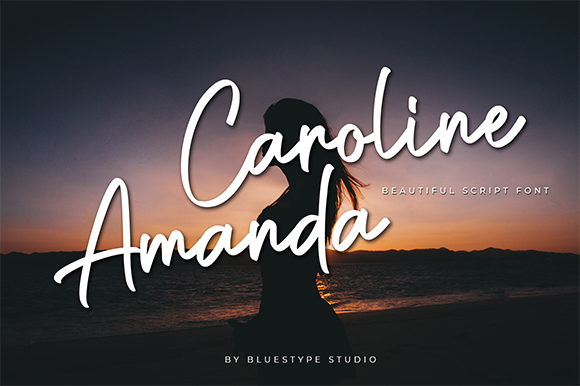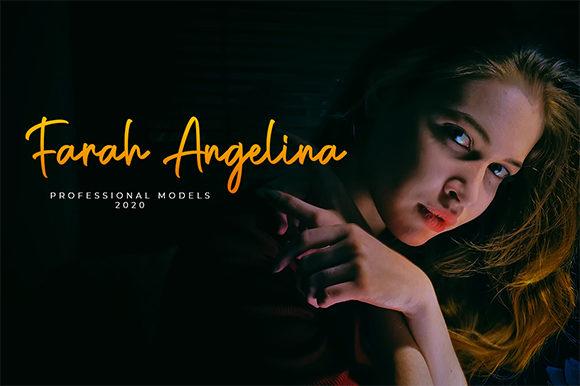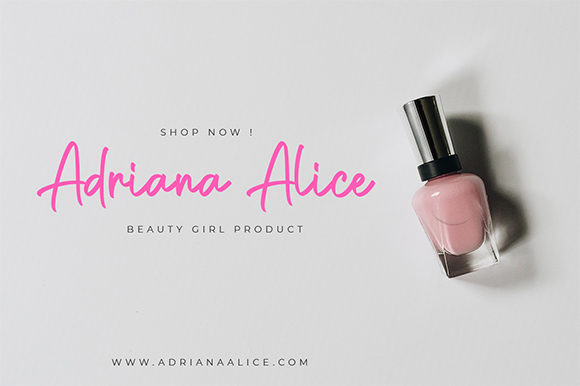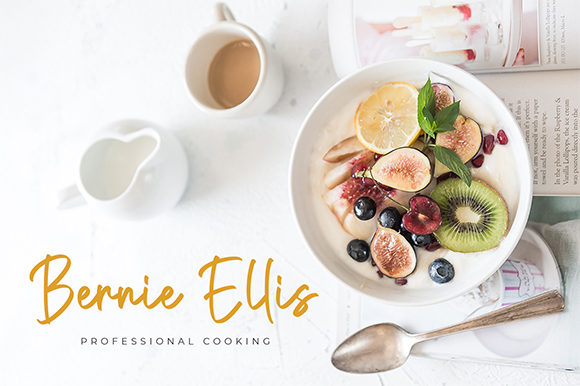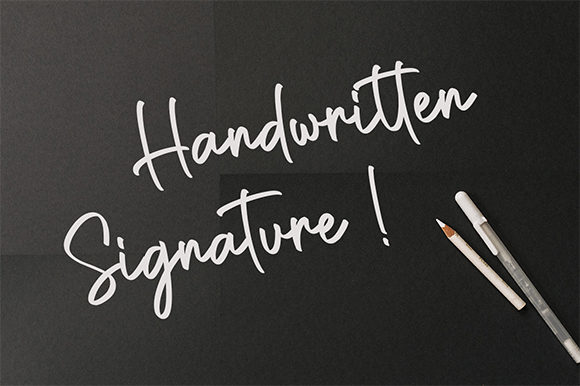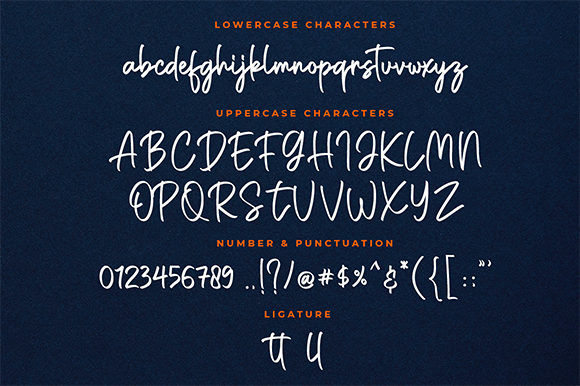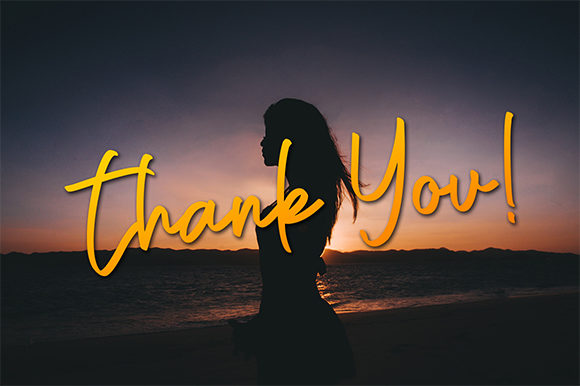
Caroline Amanda Font
About Caroline Amanda Font
Caroline Amanda is a sweet script typeface with legibility and authenticity. Use it for any design project that requires a personalized appearance!